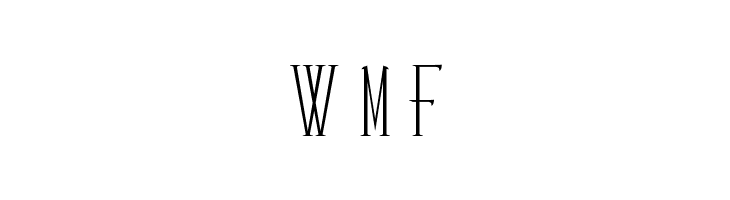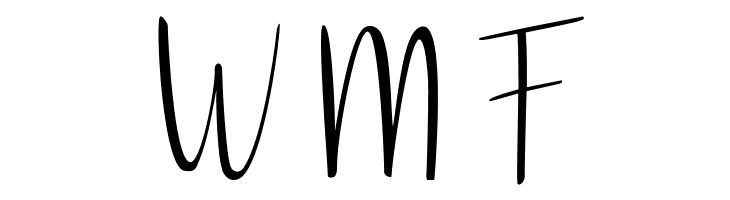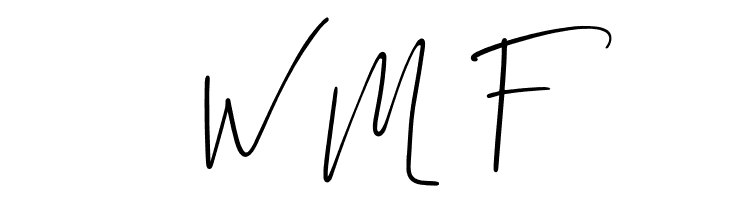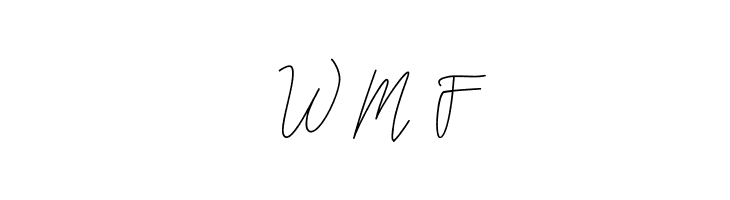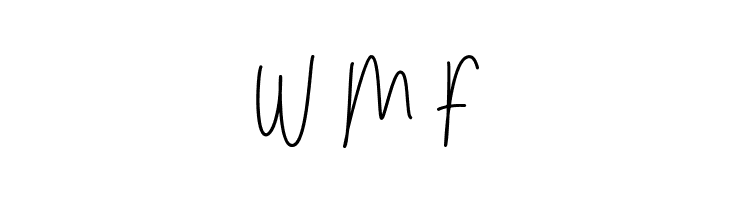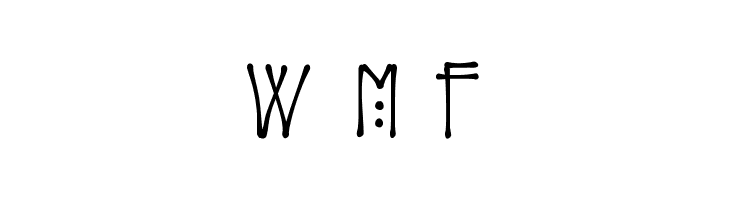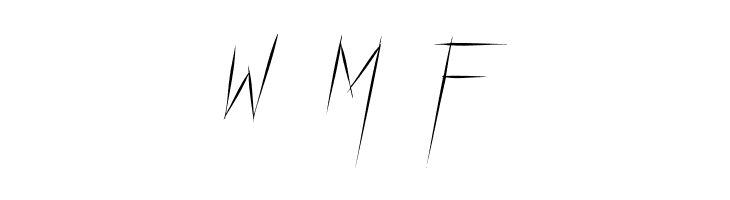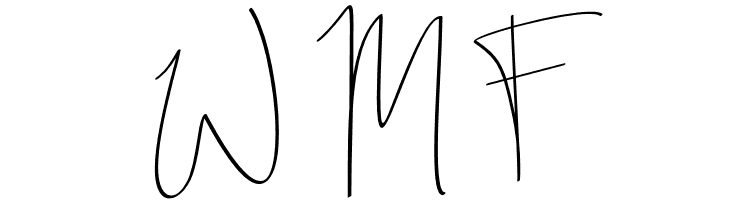
( Dan Marian Sabanovici )
An elegant, narrow font with elongated letterforms and a modern touch.
( Delafa Design - fontbundles.net/delafa )
A lively, handwritten script font with a playful and dynamic style.
( Din Studio - Donis Miftahudin - creativemarket.com/donism )
A playful and elegant handwritten font with fluid strokes and a slight slant.
( Din Studio - Donis Miftahudin - creativemarket.com/donism )
A modern, elegant handwritten font with fluid, slanted strokes.
( Din Studio - Donis Miftahudin - creativemarket.com/donism )
A modern, elegant handwritten font with fluid, cursive letterforms.
( Dismantle Destroy - Matthew Tyndall - creativemarket.com/Dismantle )
A tall, narrow, hand-drawn font with an organic and elegant style.
( Doel Creative - creativemarket.com/fajriyandi )
An elegant, flowing script font with graceful curves and decorative flourishes.
( Dominique Demetz )
A tall, narrow handwritten font with thin strokes and elongated letterforms.
( Dominique Demetz )
A whimsical font with celestial motifs and playful, decorative elements.
( Ef Studio - Luthfi Ef )
A fluid, handwritten font with a modern, elegant style.
( Eldertype Studio - creativemarket.com/eldertype )
A graceful, flowing script font with an elegant handwritten style.
( Eliezer Grawe - www.behance.net/eliezergrawe )
A playful, rounded, and slightly condensed font with a modern and approachable style.
( Emily Spadoni - www.emilyspadoni.com/ )
A whimsical, handwritten font with elegant curls and loops, perfect for creative projects.
( Emtheen Studio - Muhammad Dimas - instagram.com/dimsngrho )
A playful, handwritten font with flowing, slightly irregular letterforms.
( Erik Hannink - www.eryx.nl )
A playful, hand-drawn font with a whimsical and artistic style.
( Ezkiel Hughes - psyninjadesign.com/ )
A sharp, angular font with a modern and edgy design.
( Ezzazebra - Adhreza Brahma - www.behance.net/adhreza )
A whimsical and artistic font with elongated, narrow characters and decorative loops.
( FadeLine Std. - creativemarket.com/fadeline )
An elegant script font with flowing, interconnected letters and calligraphic style.
( FadeLine Std. - creativemarket.com/fadeline )
A graceful script font with elegant loops and modern calligraphic style.
( Fadhil Aqsa - creativemarket.com/Meutuwah )
A playful, whimsical script font with elegant loops and a handwritten feel.
( Fadhil Aqsa - creativemarket.com/Meutuwah )
A whimsical and elegant script font with decorative swirls and fluid cursive forms.
( Fargun Studio - Fajar Gunawan - creativemarket.com/FargunStudio )
A playful, elegant script font with flowing, interconnected letters.
( Fargun Studio - Fajar Gunawan - creativemarket.com/FargunStudio )
A playful, handwritten script font with a whimsical and casual style.
( Ferdiansyah - creativemarket.com/ijemrockart )
A fluid, elegant handwritten font with a sophisticated and creative style.
( Fikry Alif - fontbundles.net/admin/products.php )
A casual, handwritten font with a playful and artistic style.
( Graphix Line Studio )
A graceful, handwritten script font with a flowing, elegant style.
( Greatbleast Mark - www.creativefabrica.com/ref/205906/ )
A flowing, cursive font with an elegant handwritten style.
( Guillaume Kurkdjian - wertn.com )
A modern, elongated font with high contrast and narrow characters.
( Guiltype Studio - MIZAN - graphicriver.net/item/good-morning-purple/22116135 )
An elegant, flowing script font with a natural handwriting style.
( Haksen Letters - Sarwo Edhi Prayitno )
A whimsical, handwritten font with playful loops and curves.
( Halim Antoni - fontbundles.net/halimstudio )
An elegant script font with flowing, cursive style and intricate flourishes.
( Halim Antoni - fontbundles.net/halimstudio )
An elegant script font with flowing, interconnected letters and high contrast strokes.
( Hanny Sandoval - www.behance.net/hannysandoval )
A modern, ultra-thin, and elongated font with a minimalist design.
( Haris Prawoto - graphicriver.net/user/selawe/portfolio )
A dynamic and elegant script font with fluid letterforms and a sophisticated style.
( Haris Prawoto - graphicriver.net/user/selawe/portfolio )
A stylish cursive font with flowing, interconnected letterforms.